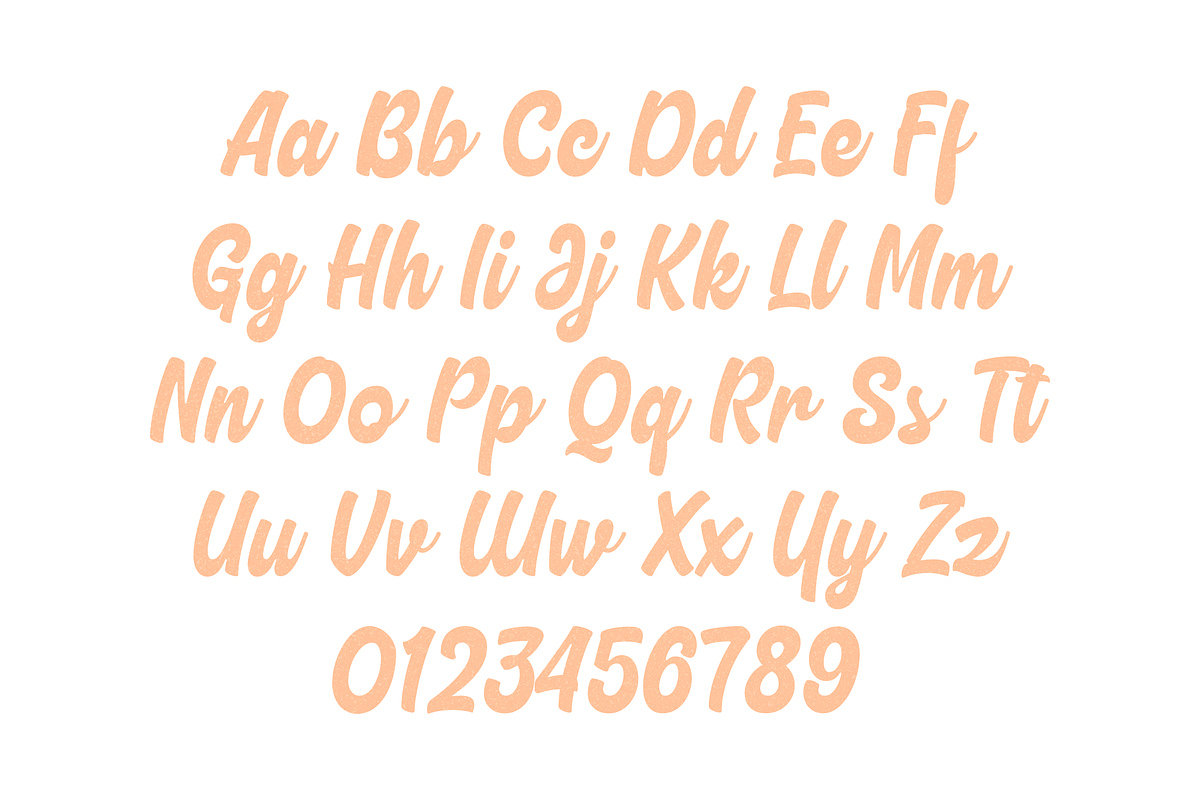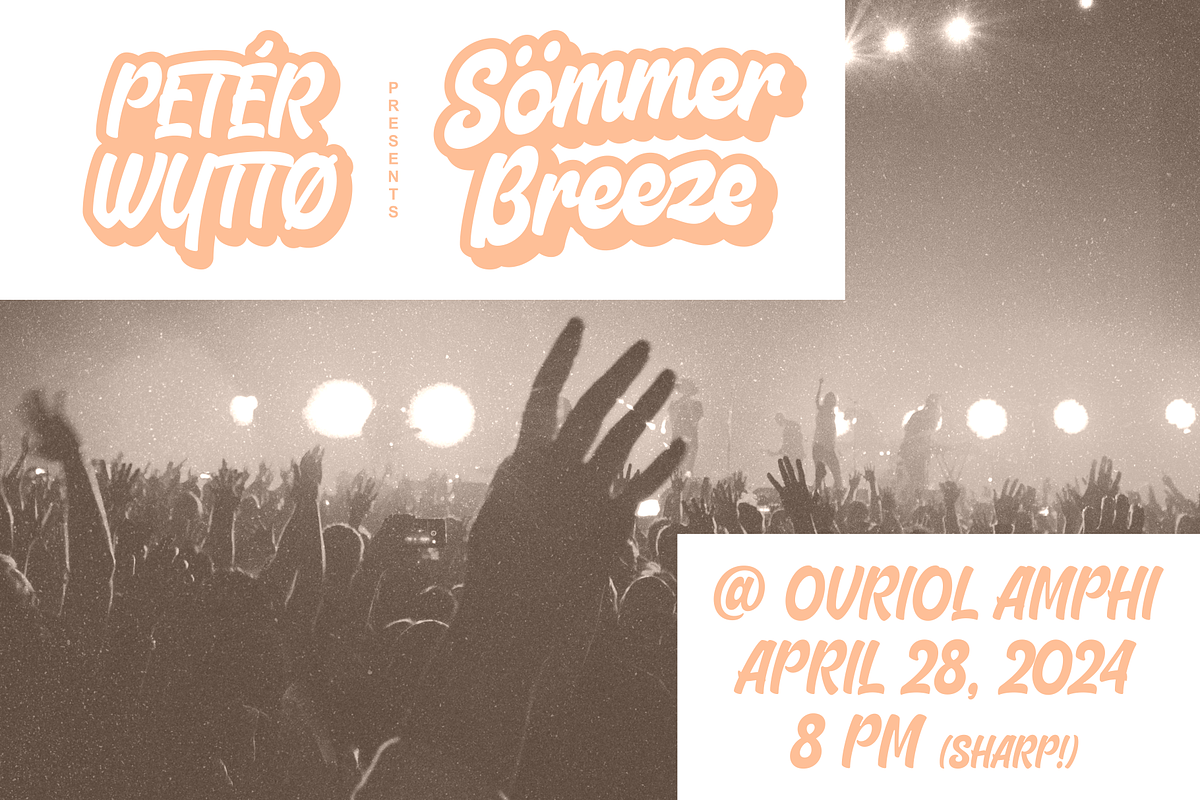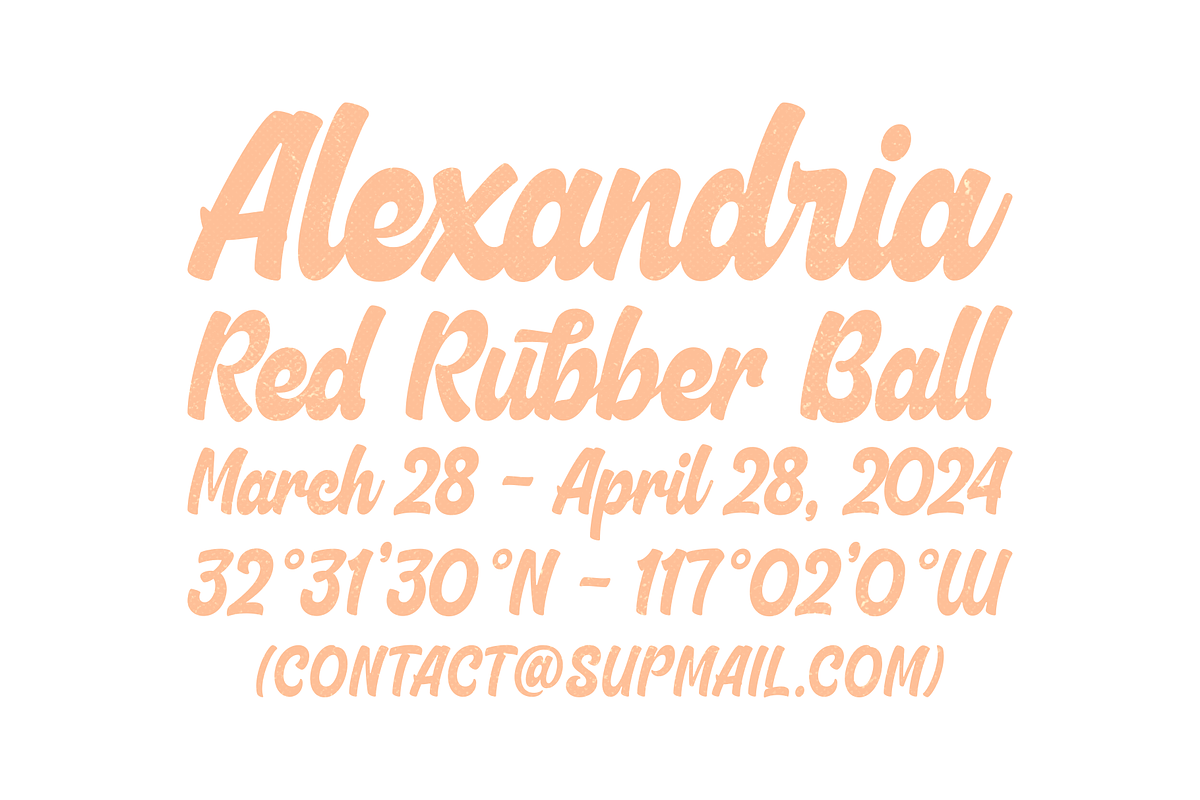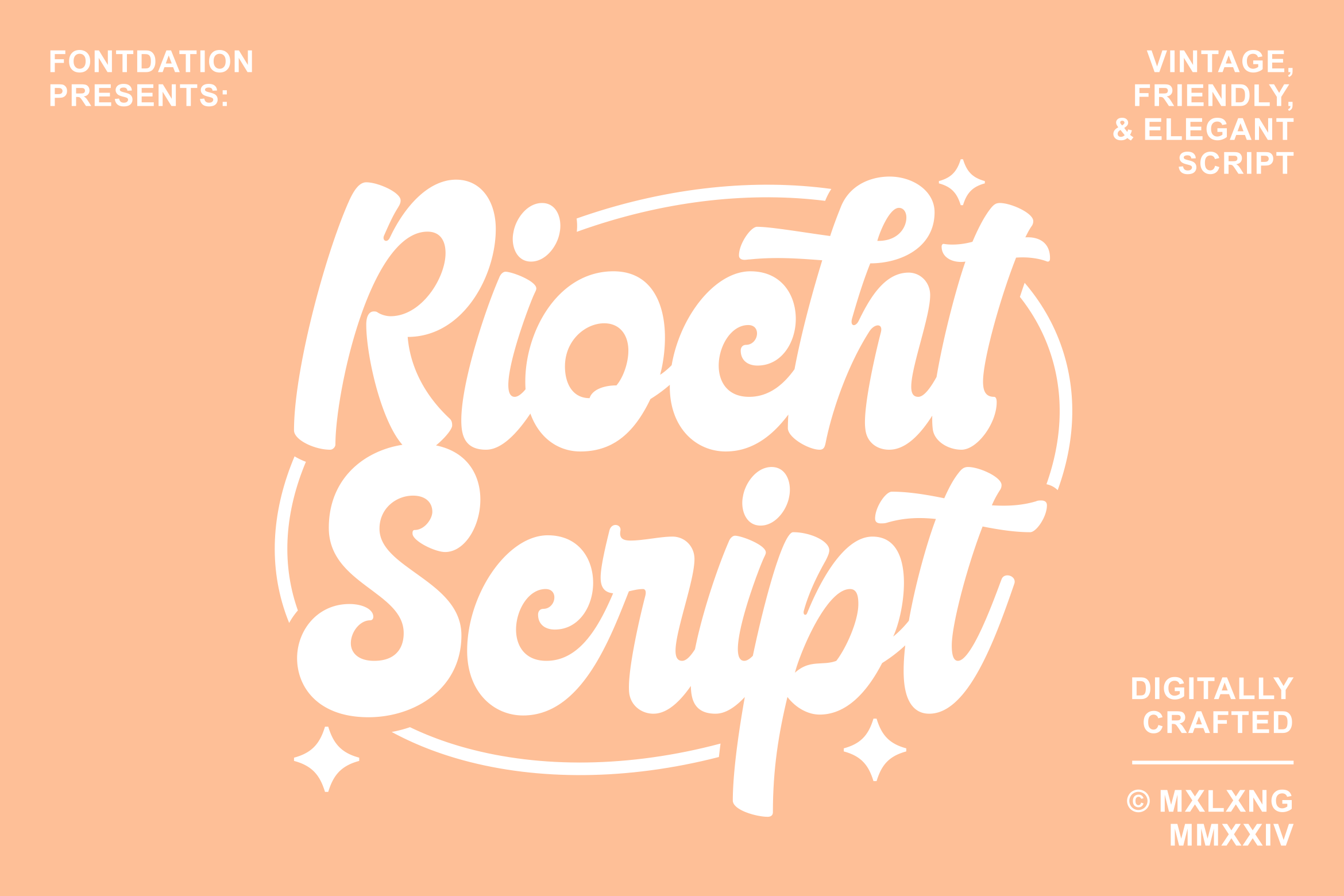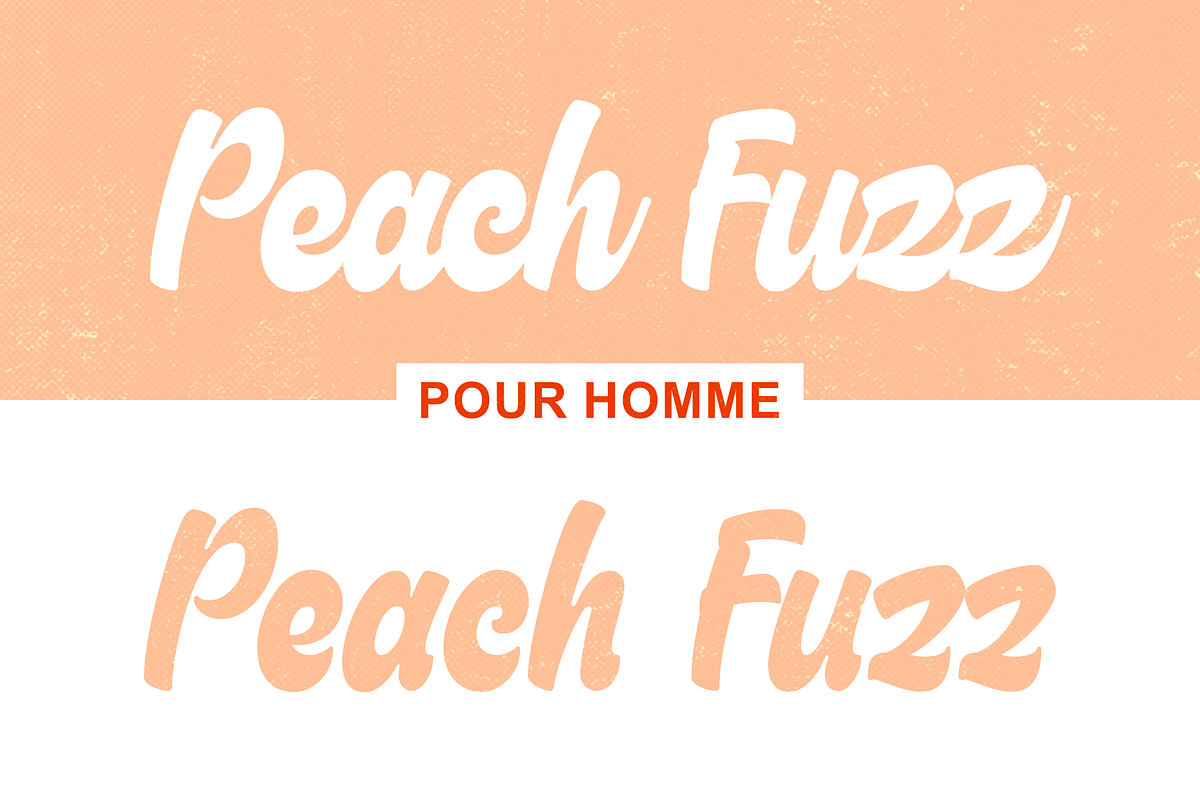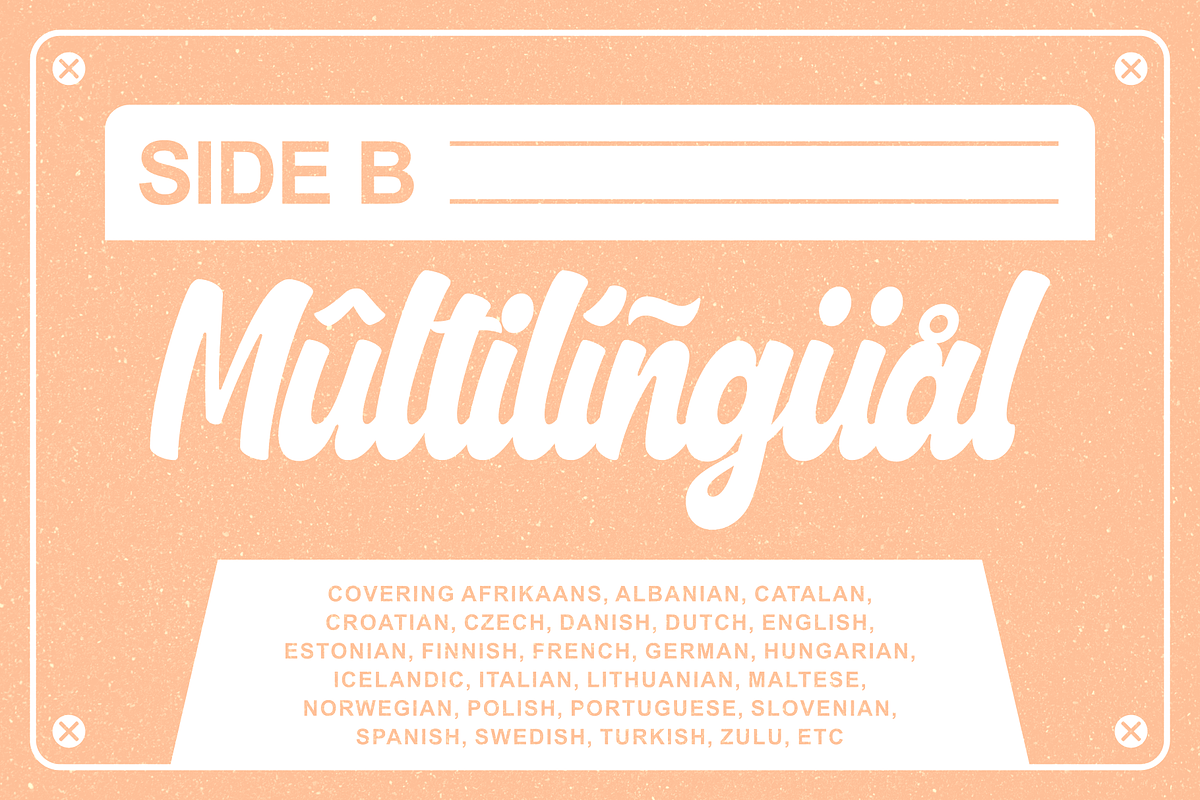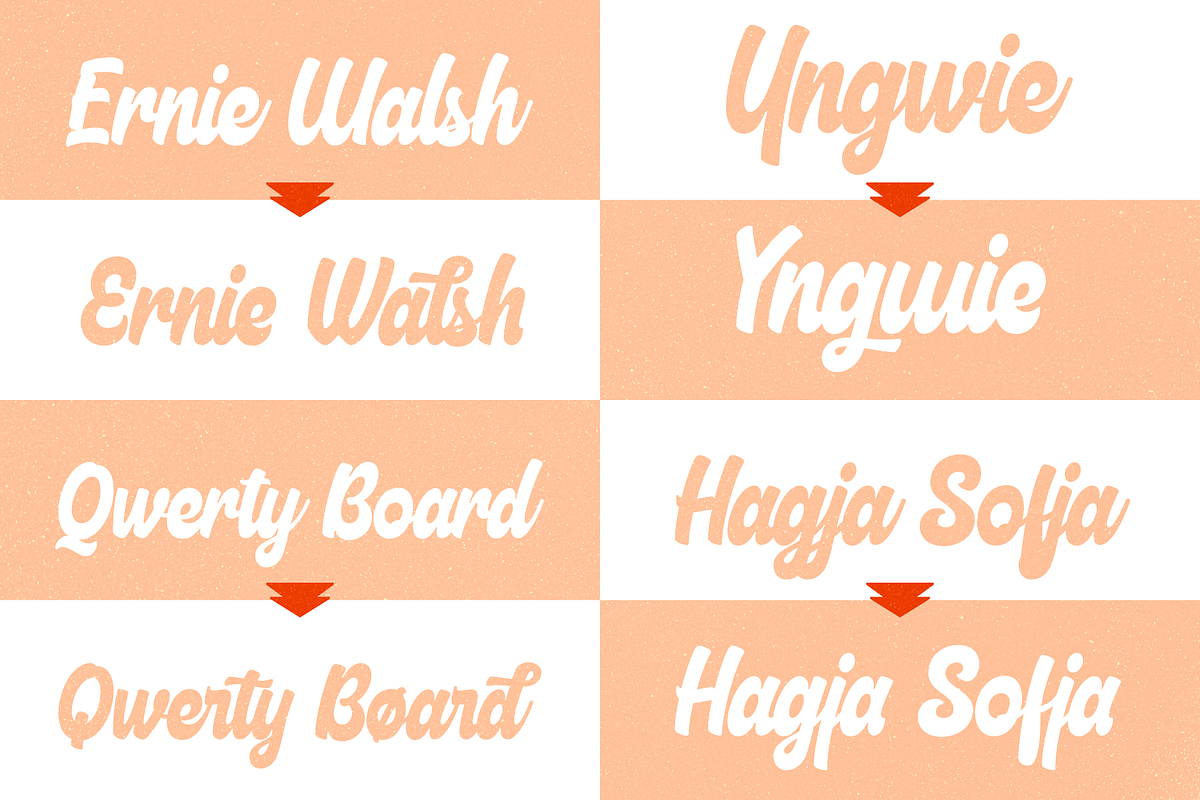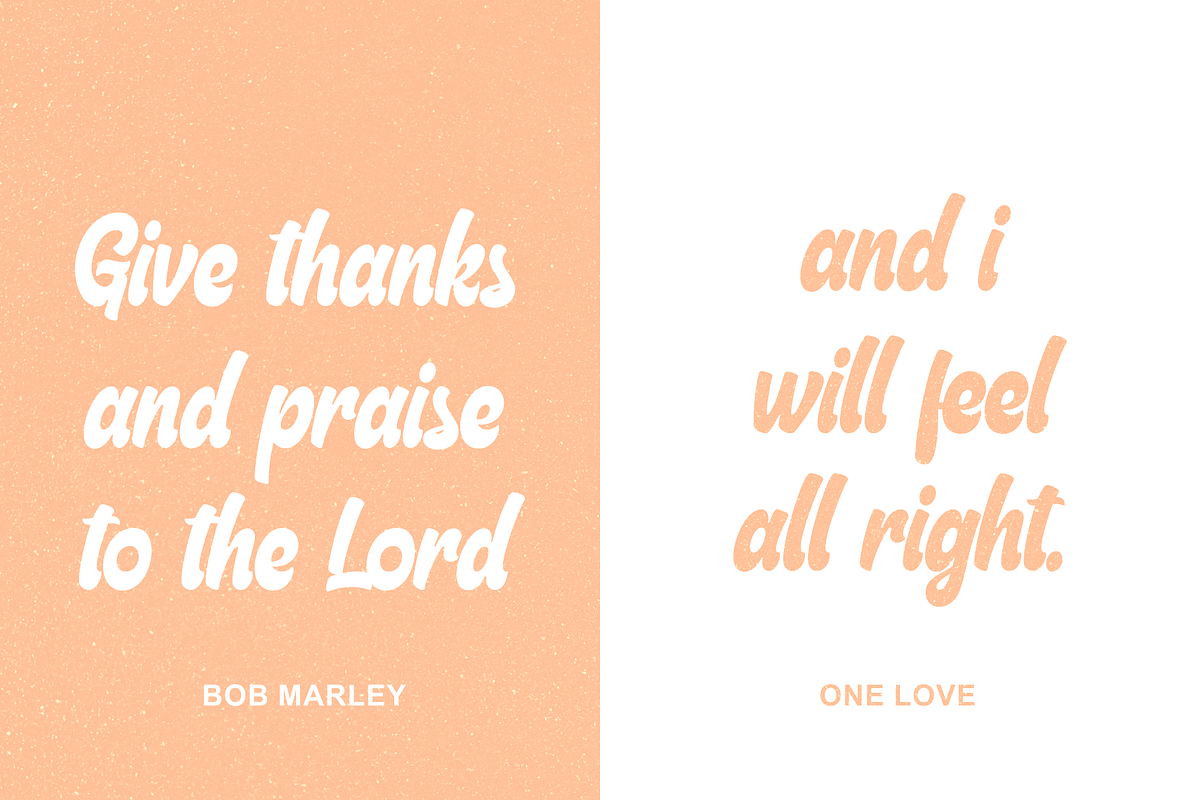
Riocht | Vintage Playful Font
Riocht Script, our brand new playful yet vintage script font. Inspired by letters/signpaintings that are used in classic advertisement/product packaging, tweaked with high.attention to details to match todays designing standard. Available in tail-less version (alternate characters) too, so you can play more with the letter variations. Suits best for food/beverage packagings, logo/branding, quote/poster/apparel designs, headlines, social media contents, etc. Give Riocht Script a try and let your design speaks louder!
- Standard characters, numerals, punctuations, swash, alternate & stylistic characters, ligatures (OpenType Standard encoding),
- Available in multilingual languages, e.g : Afrikaans, Albanian, Catalan, Croatian, Czech, Danish, Dutch, English, Estonian, Finnish, French, German, Hungarian, Icelandic, Italian, Lithuanian, Maltese, Norwegian, Polish, Portuguese, Slovenian, Spanish, Swedish, Turkish, Zulu, etc),